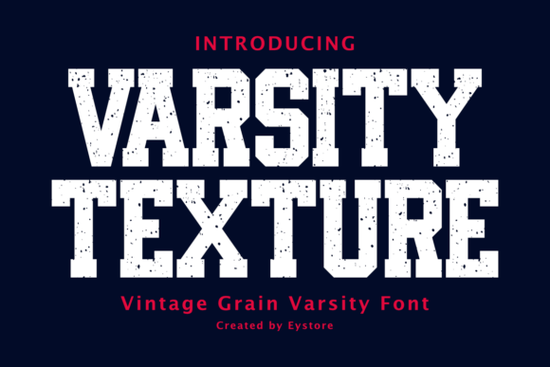
If you're looking for a bold, authentic-looking vintage font that works just as well on a t-shirt as it does on a school spirit poster, Varsity Texture Font is a solid choice. It’s not overly ornate or fussy just clean, strong block letters with a subtle distressed grain that suggests decades of team pride and gymnasium chalk dust. Designed with real-world use in mind, it balances character and clarity, so your text stays readable even at smaller sizes or on textured fabrics.
What makes Varsity Texture different from other retro sports fonts?
Many “vintage” fonts lean too far into grunge or hand-drawn imperfection, making them hard to scale or pair with other typefaces. Varsity Texture avoids that trap. Its texture is consistent and intentional not random noise so it holds up across print, vinyl cutting, embroidery digitizing, and digital mockups. You’ll notice the weight is generous but not overwhelming, and the letter spacing is open enough to prevent crowding, especially when used for short phrases like “TEAM,” “CHAMP,” or “STATE FINALISTS.”
Compare it to Goodwin Font, which offers a cleaner, more modern display aesthetic, or Sportex Font, which leans into athletic stencil styling. Varsity Texture sits comfortably between those two bolder than Goodwin, less rigid than Sportex giving you flexibility without sacrificing its core identity.
Where does it work best?
This font shines where authenticity and energy matter most:
- Apparel & merch: Think crewneck sweatshirts, baseball caps, and tote bags especially for schools, clubs, or local leagues.
- School projects: Yearbook covers, pep rally banners, or club flyers that need to feel grounded in tradition, not trend-chasing.
- Print-on-demand shops: It converts well customers recognize the vibe instantly, and it pairs easily with simple icons or basic color palettes (navy + gold, crimson + white, etc.).
- Crafting & Cricut/Silhouette users: The texture holds up nicely when cut as a layer or used with foiling techniques, as long as you avoid ultra-thin strokes or tiny serifs.
It’s also a thoughtful alternative to Urban Blast Font if you want something less urban streetwear and more timeless campus or to Belindra Font if your project calls for strength over elegance.
How to use it without overdoing the vintage effect
A little texture goes a long way. Try pairing Varsity Texture with a neutral sans-serif (like Montserrat or Open Sans) for body copy this keeps hierarchy clear and avoids visual fatigue. If you’re designing for screen, test how the texture renders at 16–18px; it’s legible, but avoid using it for paragraphs or long captions.
For print, keep an eye on ink coverage. Because of its grain, it can look heavier on uncoated paper consider reducing fill opacity by 5–10% if you’re aiming for subtlety. And if you’re layering it over photos or busy backgrounds, try adding a light drop shadow or subtle stroke to ensure contrast.
Is it beginner-friendly?
You’ll find similar design intent in fonts like Varsity Texture Font, Sportex Font, and Goodwin Font each serving slightly different corners of the sports and branding space.
- Does my project benefit from a warm, lived-in, collegiate feel or would a crisper or more playful option fit better?
- Will I be using it mostly for headlines and short phrases? (It’s not designed for long-form text.)
- Do I need multilingual support or extended characters? (Varsity Texture covers basic Latin A–Z, numerals, and common punctuation great for English-first use cases.)
If you’ve answered “yes” to the first three and selected the appropriate license, you’re set. Varsity Texture won’t solve every typography problem but for spirited, straightforward, no-nonsense sports and school designs, it delivers exactly what it promises: bold presence, quiet authenticity, and real-world usability.